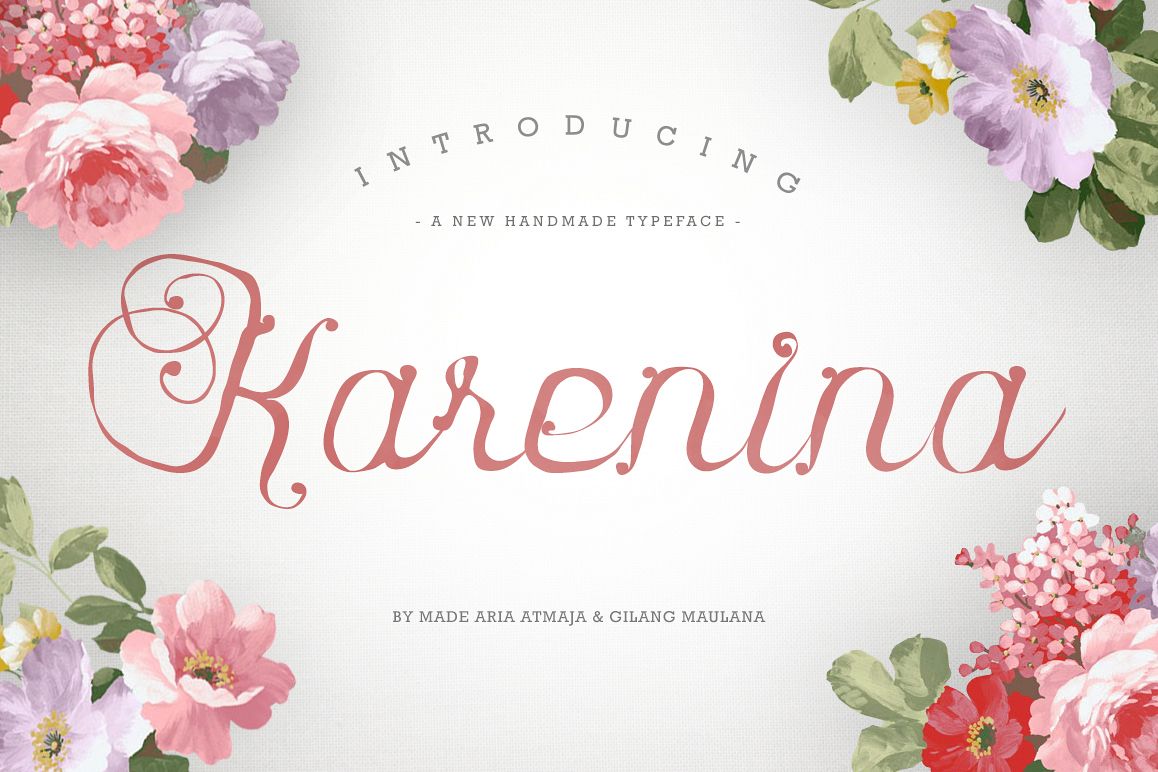
Karenina Script Font + Cute Vectors example image 1
Karenina Script Font + Cute Vectors
Give your designs an authentic handcrafted feel. "Karenina" is perfectly suited to stationery, logos and much more.